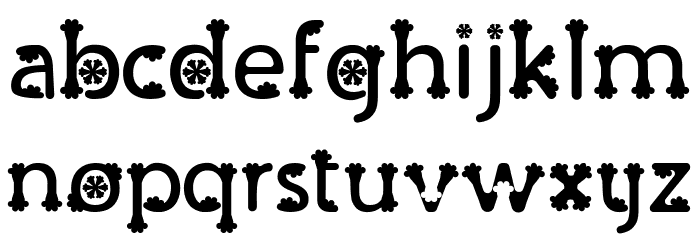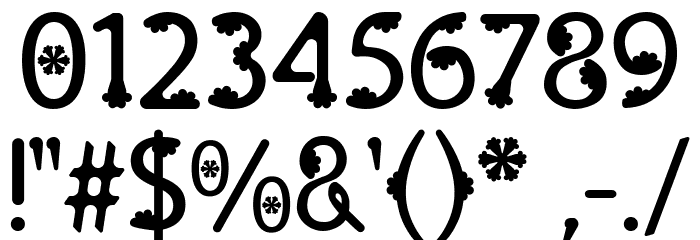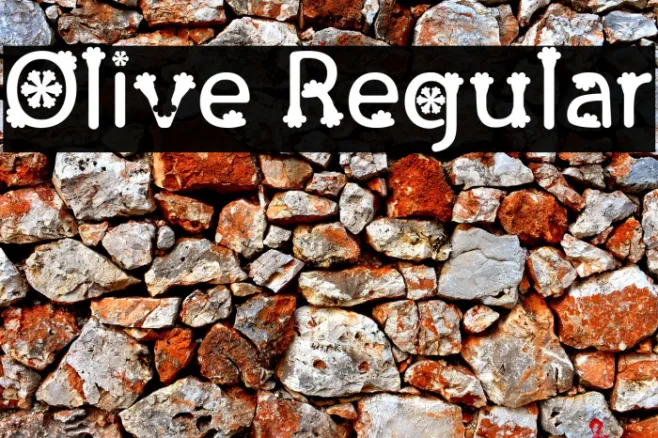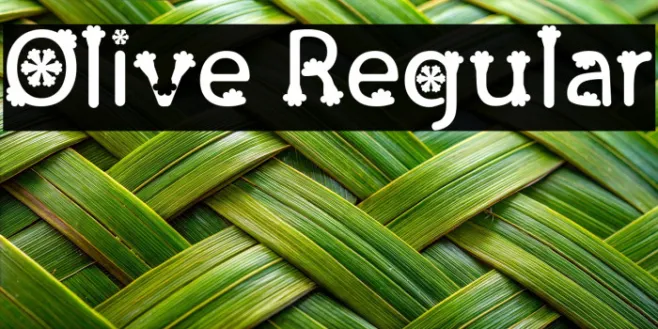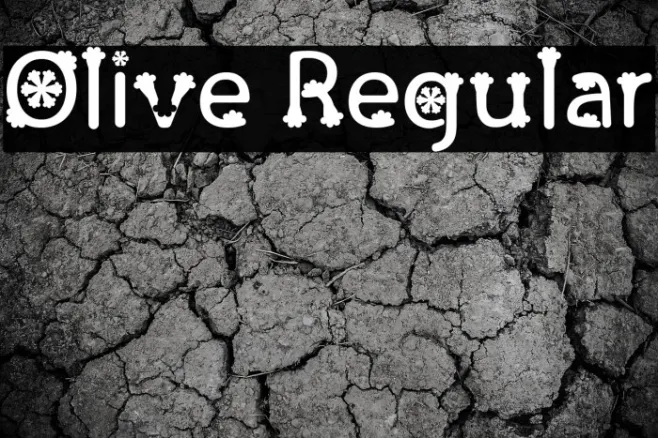
Olive Regular Font
This font features a unique and decorative style with intricate floral or clover-like embellishments at the ends of each character. The uppercase and lowercase letters maintain a consistent design, with rounded edges and a playful, whimsical appearance. The numbers and special characters follow the same decorative theme, making the font cohesive and visually striking. Its bold and artistic design makes it stand out, suitable for creative and eye-catching projects. The font's distinct style is both modern and vintage, offering a versatile option for various design needs.
A decorative font with floral embellishments and a whimsical style.
- Proposed Projects: Ideal for greeting cards, invitations, posters, and branding that requires a playful and artistic touch.